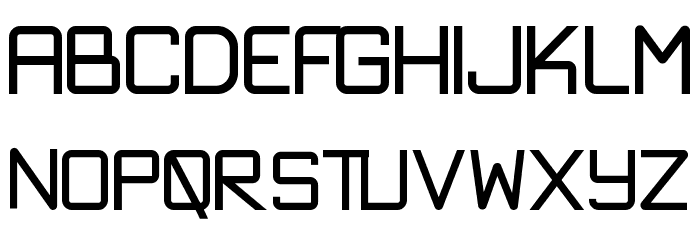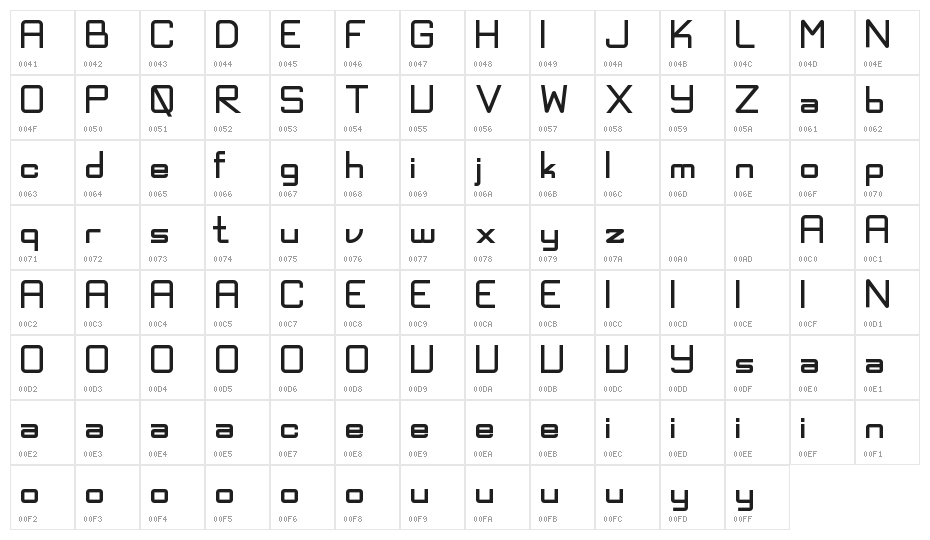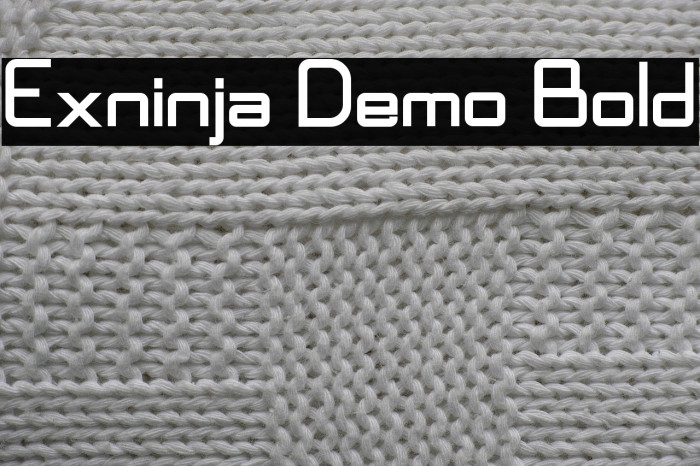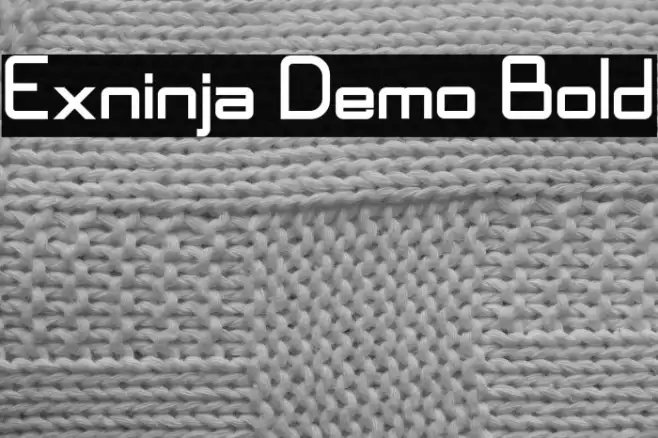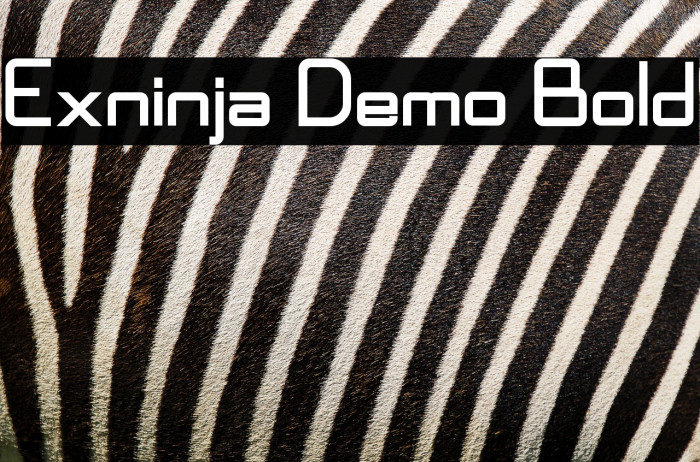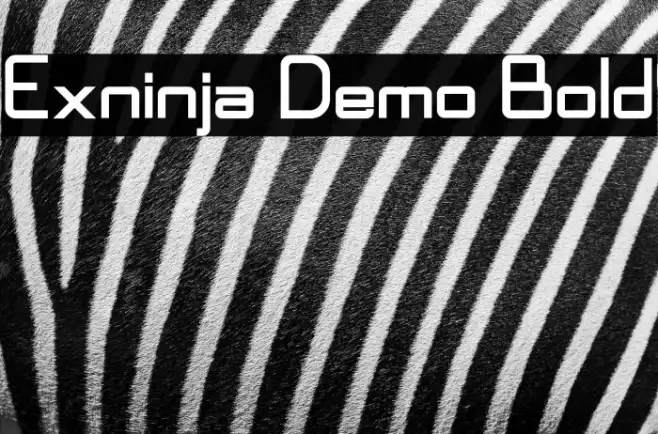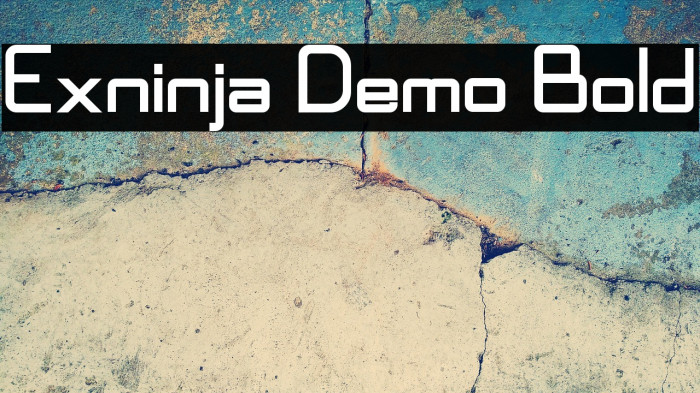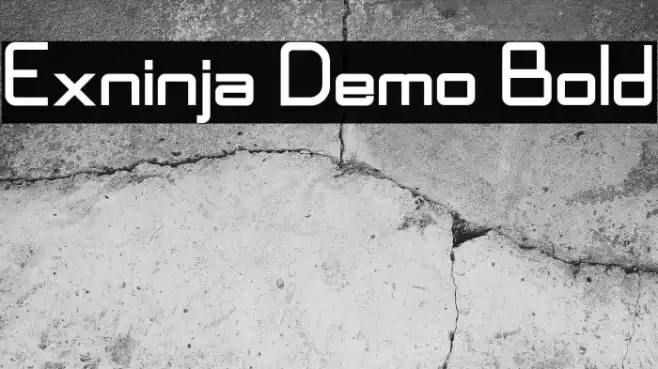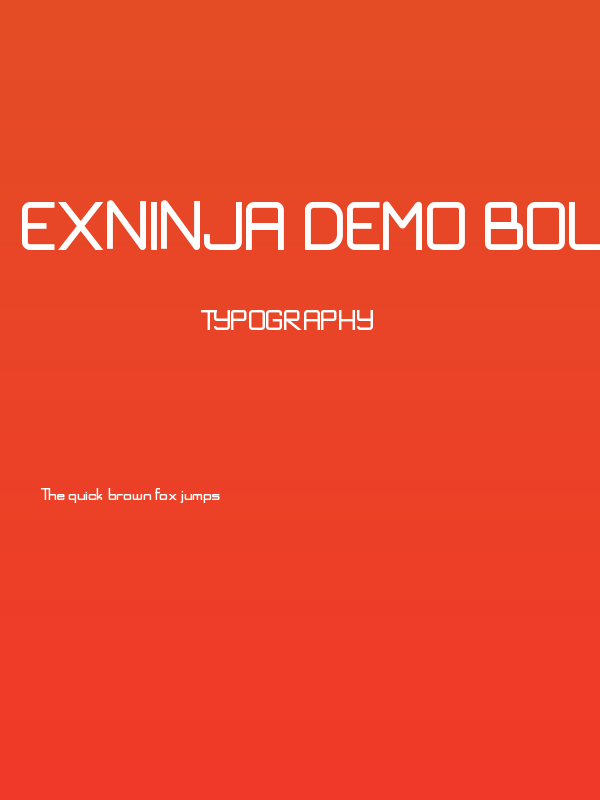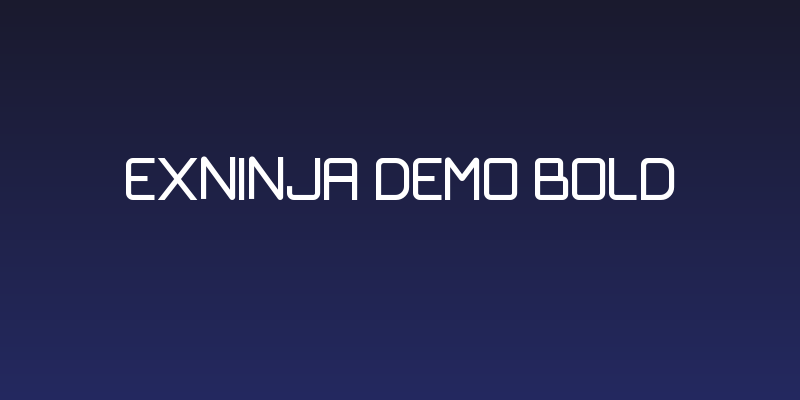
Exninja Demo Bold Font
Exninja Demo Bold Description
This font features a bold, geometric design with a modern and futuristic appeal. The characters are constructed with clean, straight lines and sharp angles, giving it a structured and technical look. The uppercase and lowercase letters maintain a consistent style, with a uniform stroke width that enhances its boldness. The font's design is minimalistic yet impactful, making it suitable for a variety of creative applications. Its distinct appearance is characterized by a squared-off aesthetic, which adds a unique touch to any project. The font's clarity and precision make it ideal for use in digital and print media where a strong visual presence is required.
| Use Case | Headlines, Logos, Display text |
| Proposed Projects | Ideal for technology branding, video game titles, sci-fi book covers, and modern advertising campaigns. |